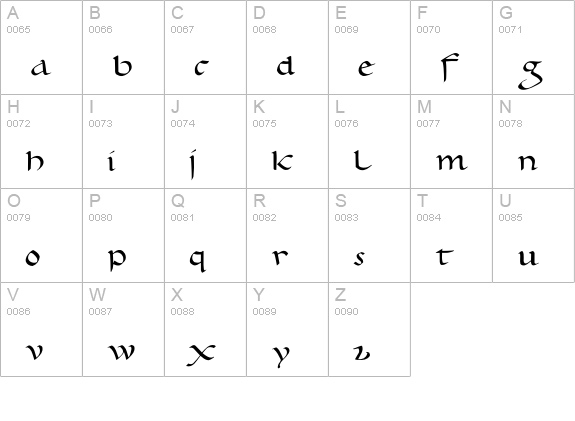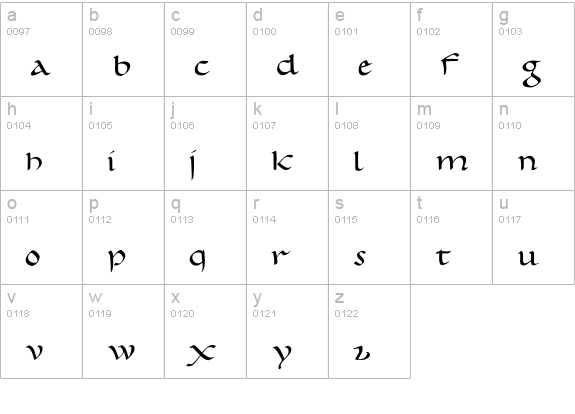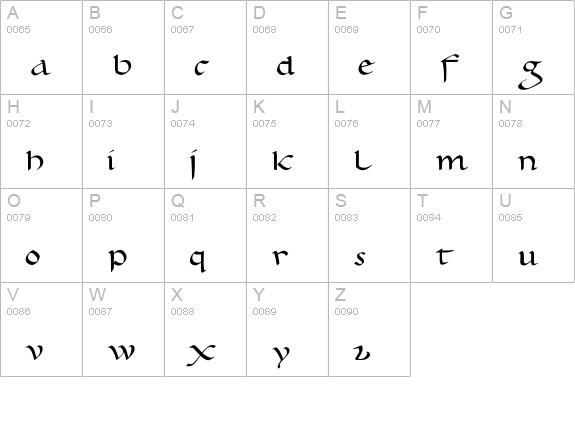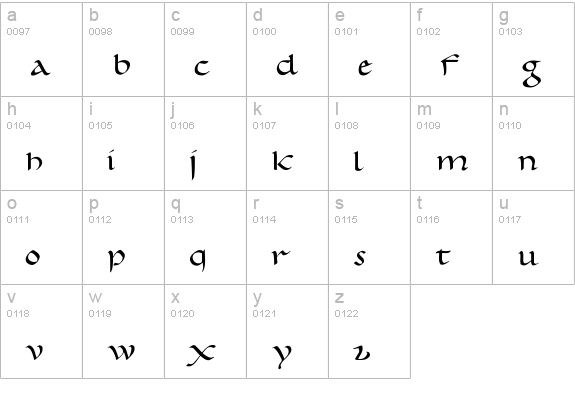
CarolusMagnus Font Details
Introducing CarolusMagnus font, a stunning display typeface that exudes elegance and sophistication. With its intricate details and classic design, CarolusMagnus is the perfect choice for projects that require a touch of timeless charm. This font features a unique blend of modernity and tradition, making it versatile for a wide range of design applications. Whether you're designing a wedding invitation, a logo, or a branding project, CarolusMagnus is sure to make a lasting impression. What's even better is that CarolusMagnus font is completely free to download at FontsMarket.com. Yes, you read that right - this exquisite typeface is available for you to use in your projects at no cost. Don't miss out on the opportunity to enhance your designs with the beauty of CarolusMagnus font. Download it today and let your creativity shine!